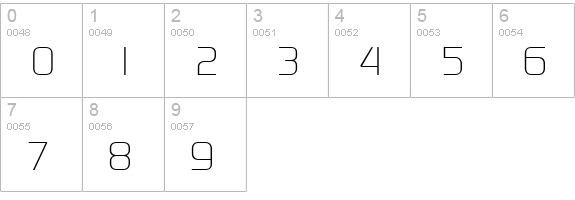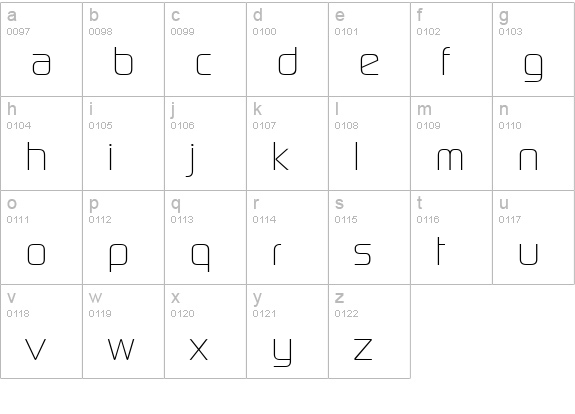
ModaerneLight Regular is the standard, neutral variant in the ModaerneLight typeface family \xE2\x80\x94 well suited to general body text, paragraphs, and standard typographic work.
ModaerneLight Regular is a sleek and modern font that exudes elegance and sophistication. With its clean lines and contemporary design, this font is perfect for a wide range of projects, from branding to editorial design. The typeface features a balanced combination of sharp edges and gentle curves, giving it a unique and stylish look that will make your text stand out. The best part? ModaerneLight Regular is available for free download at FontsMarket.com, making it easily accessible to designers and creatives looking to add a touch of modern flair to their work. Whether you're working on a website, a poster, a logo, or anything in between, this versatile font is sure to enhance your project and leave a lasting impression. Download ModaerneLight Regular today and elevate your designs with its contemporary charm.